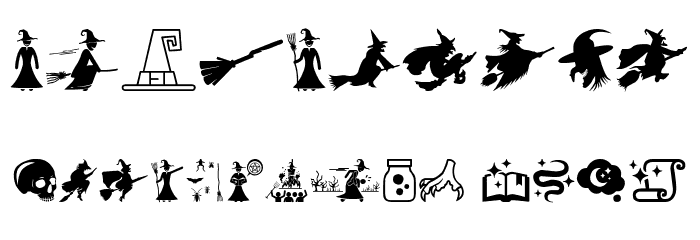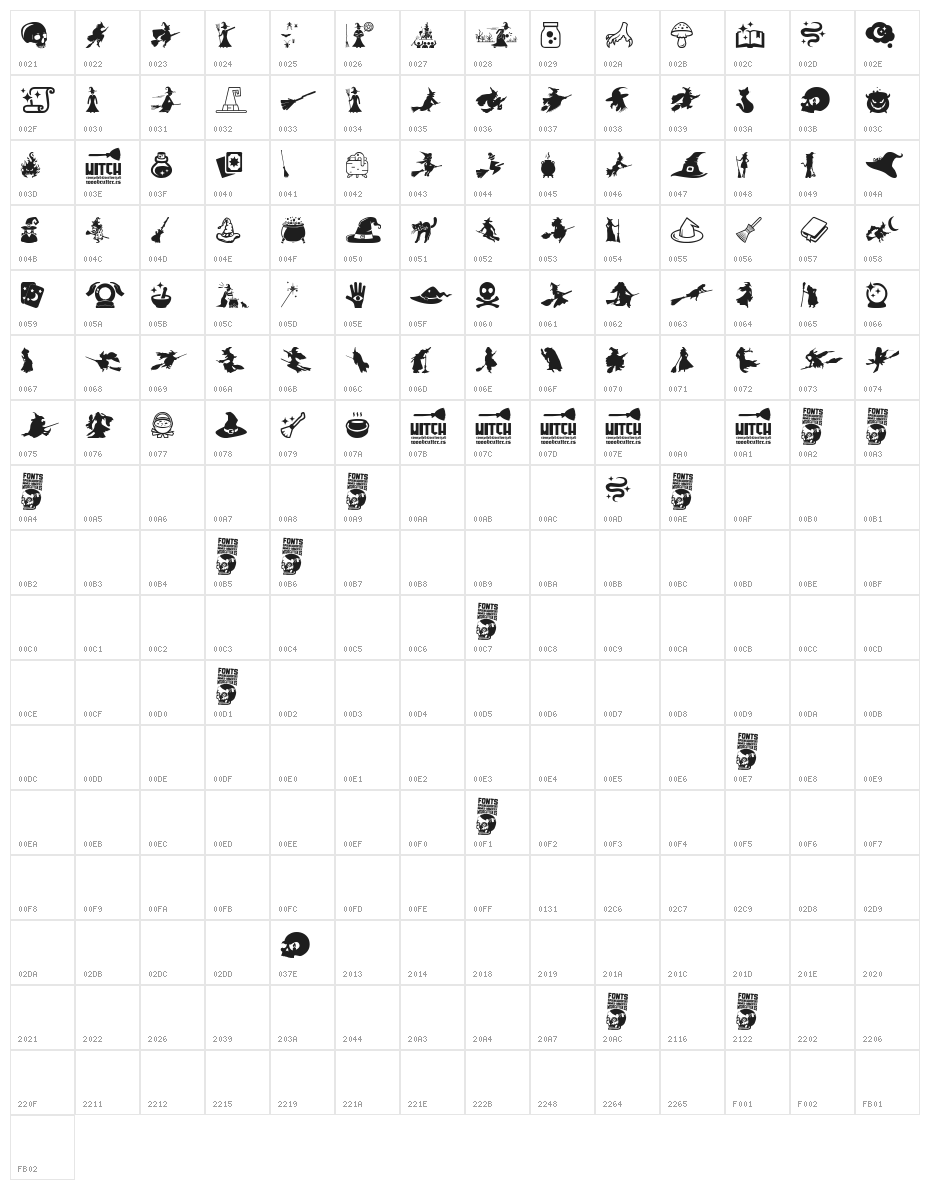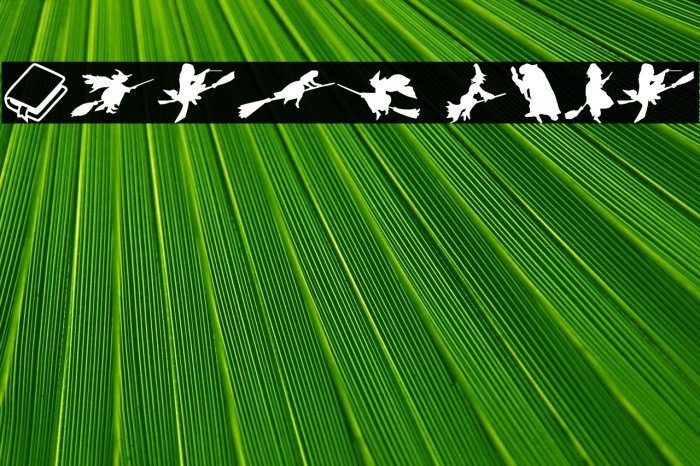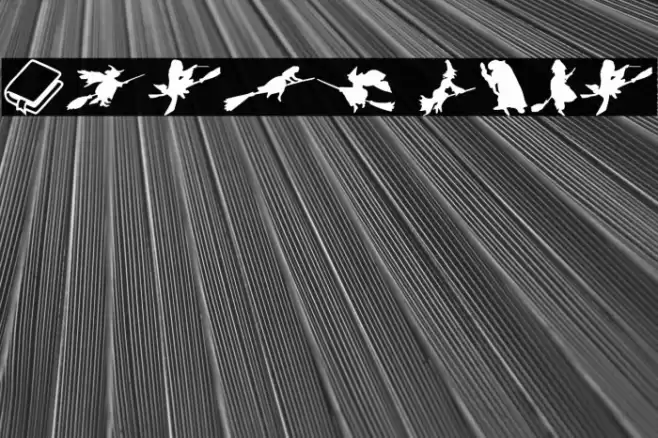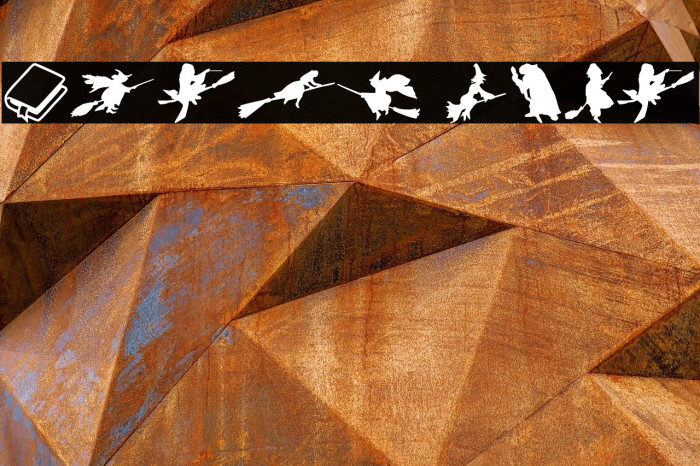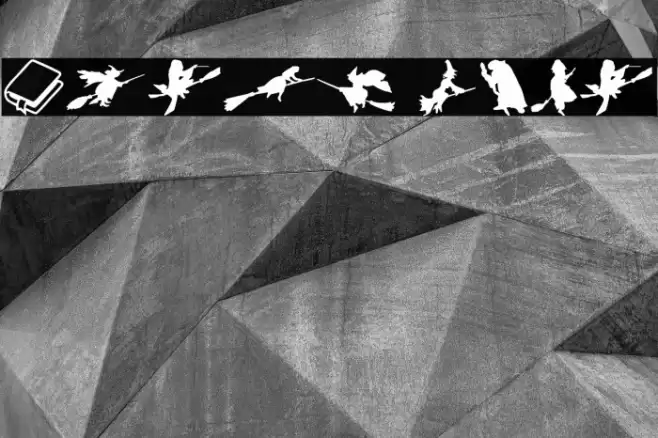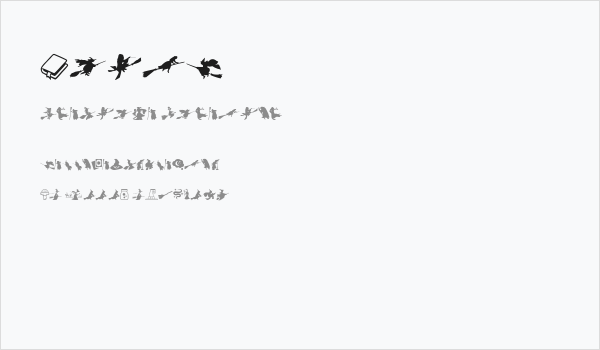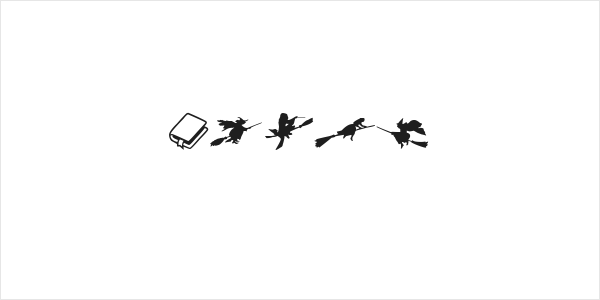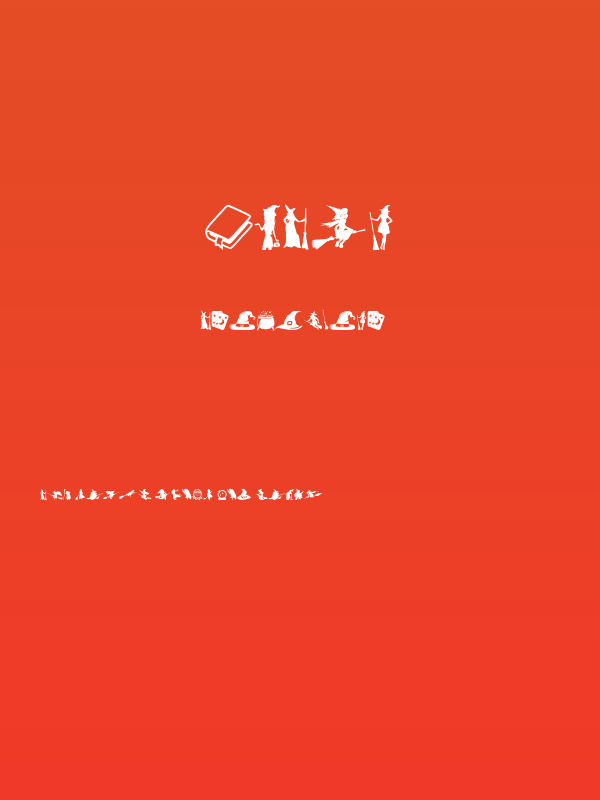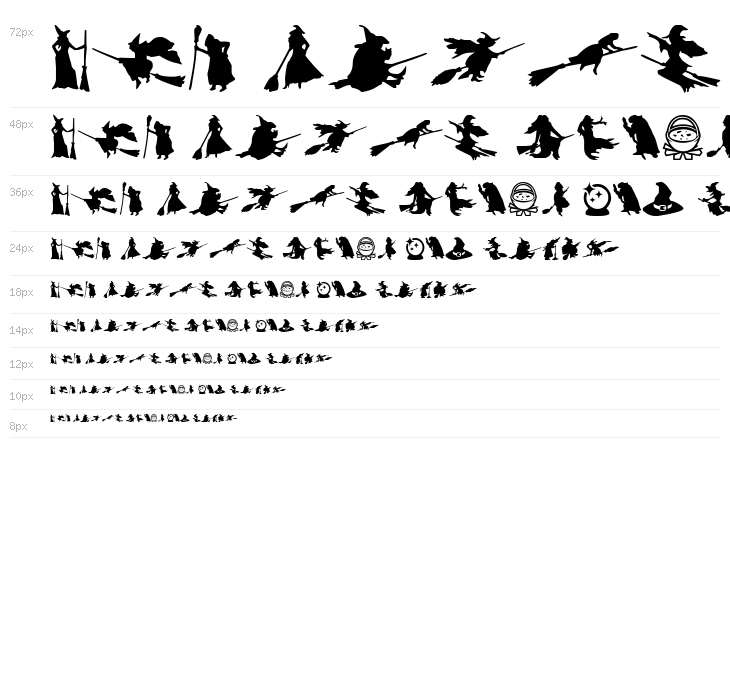
Witch Font
Witch Description
A decorative dingbat font featuring various witch-themed silhouettes and icons, including witches on brooms, hats, cauldrons, black cats, potions, and magical symbols, all rendered in bold, high-contrast black shapes with playful and whimsical details.
| Overall Style | Decorative, Whimsical, Thematic |
| Use Case | Icons, Decorative elements, Themed graphics |
| Proposed Projects | Halloween invitations, party flyers, themed posters, children's books, crafts, and digital stickers. |